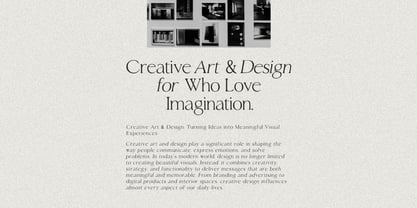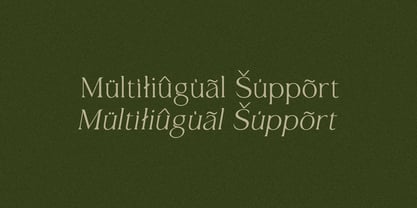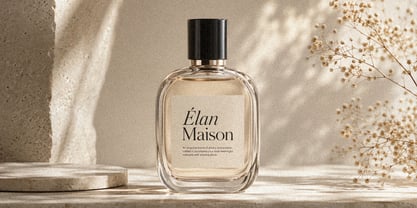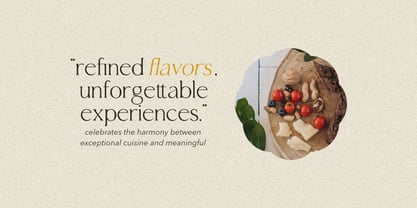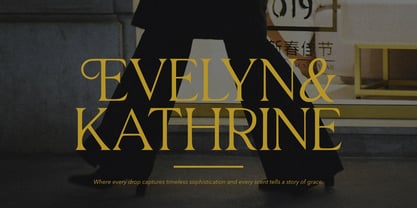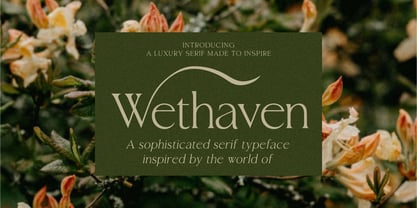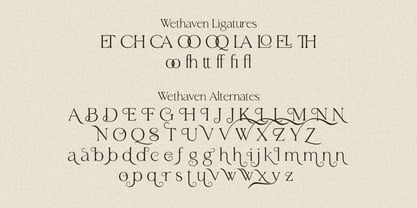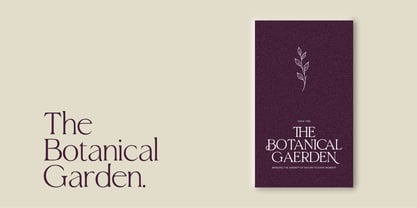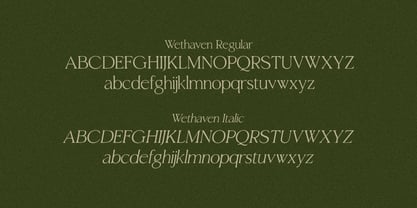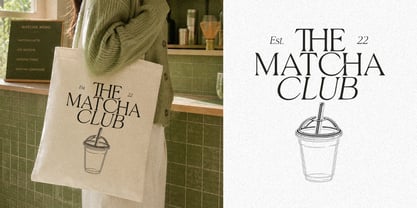
Wethaven
La familia tipográfica Wethaven fue diseñada por Angga Monad y publicada por Modikstype. Wethaven contiene 2 estilos y opciones de paquete familiar. Más información sobre esta familia
Wethaven is an elegant luxury serif typeface designed to bring sophistication, timeless beauty, and refined character to every project. Inspired by the world of high-end fashion, editorial design, premium branding, and modern aesthetics, Wethaven features graceful curves, sharp contrast, and beautifully crafted letterforms that instantly elevate your typography.
Whether you're designing luxury logos, branding identities, magazine layouts, packaging, wedding stationery, cosmetics, cafés, restaurants, or social media content, Wethaven delivers a distinctive and memorable visual presence. Its stylish proportions and elegant details make it perfect for creating premium designs that feel both classic and contemporary.
The font shines in large headlines, brand marks, posters, editorial titles, product packaging, and marketing materials where elegance and readability matter equally.